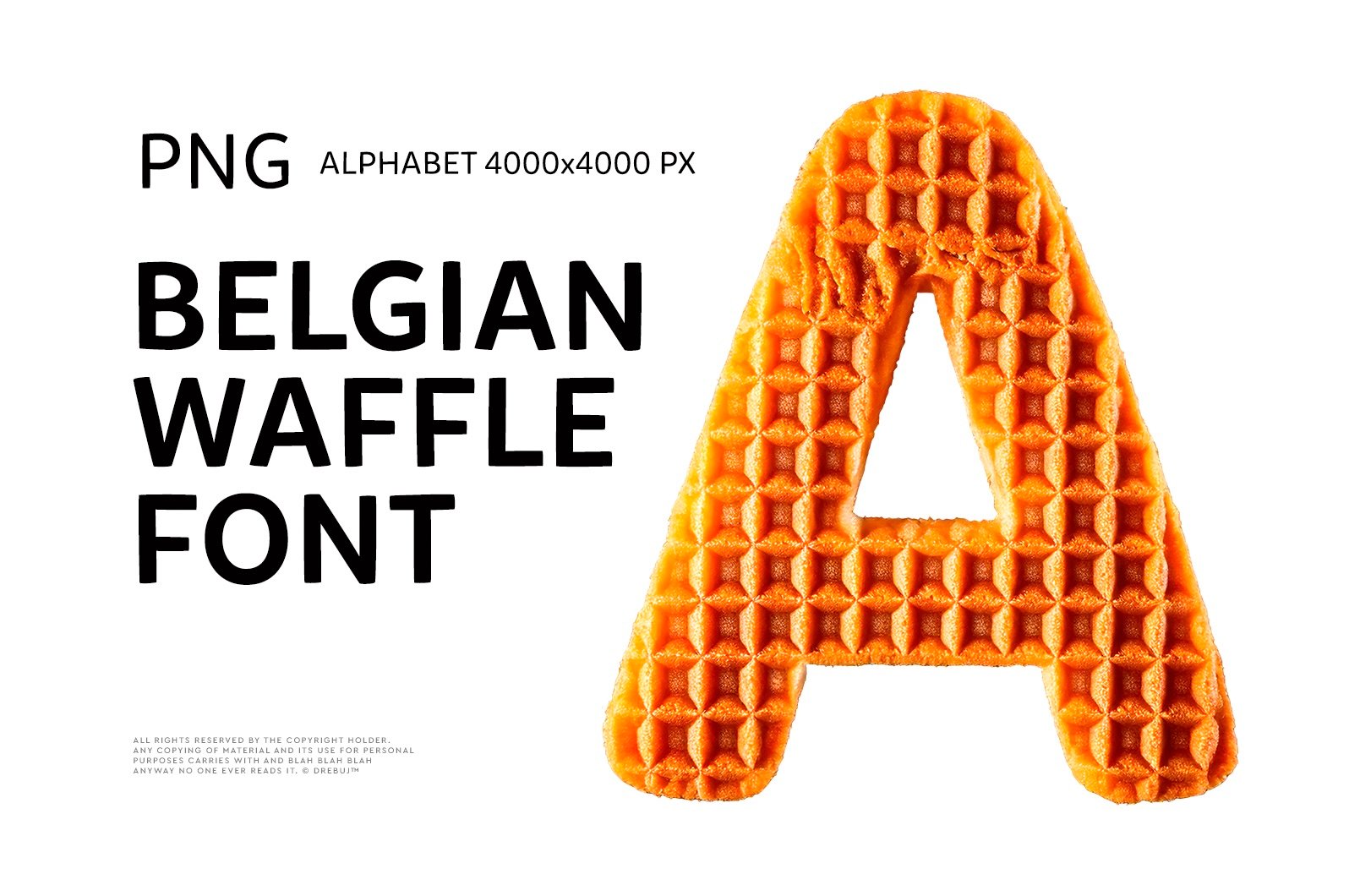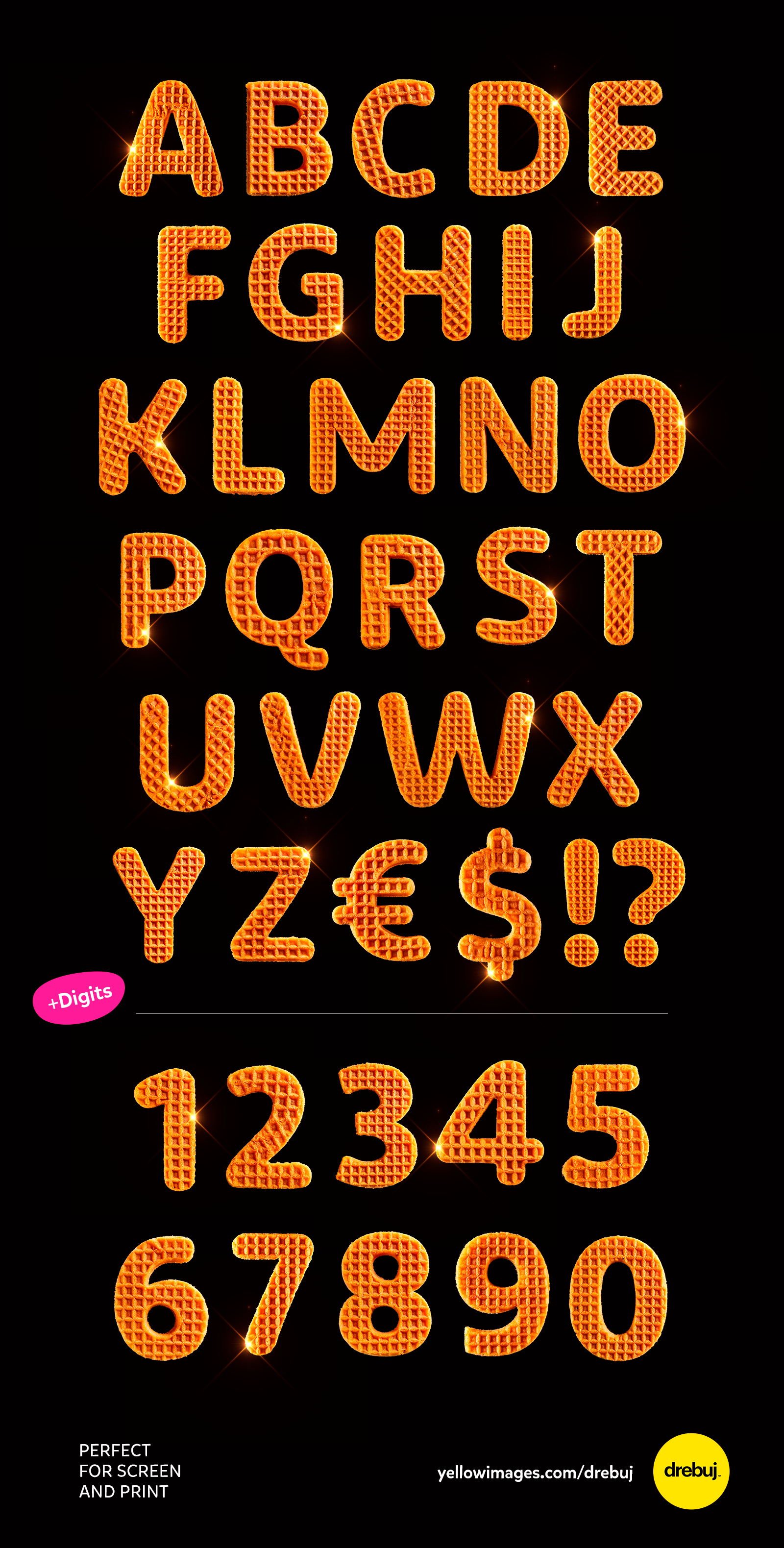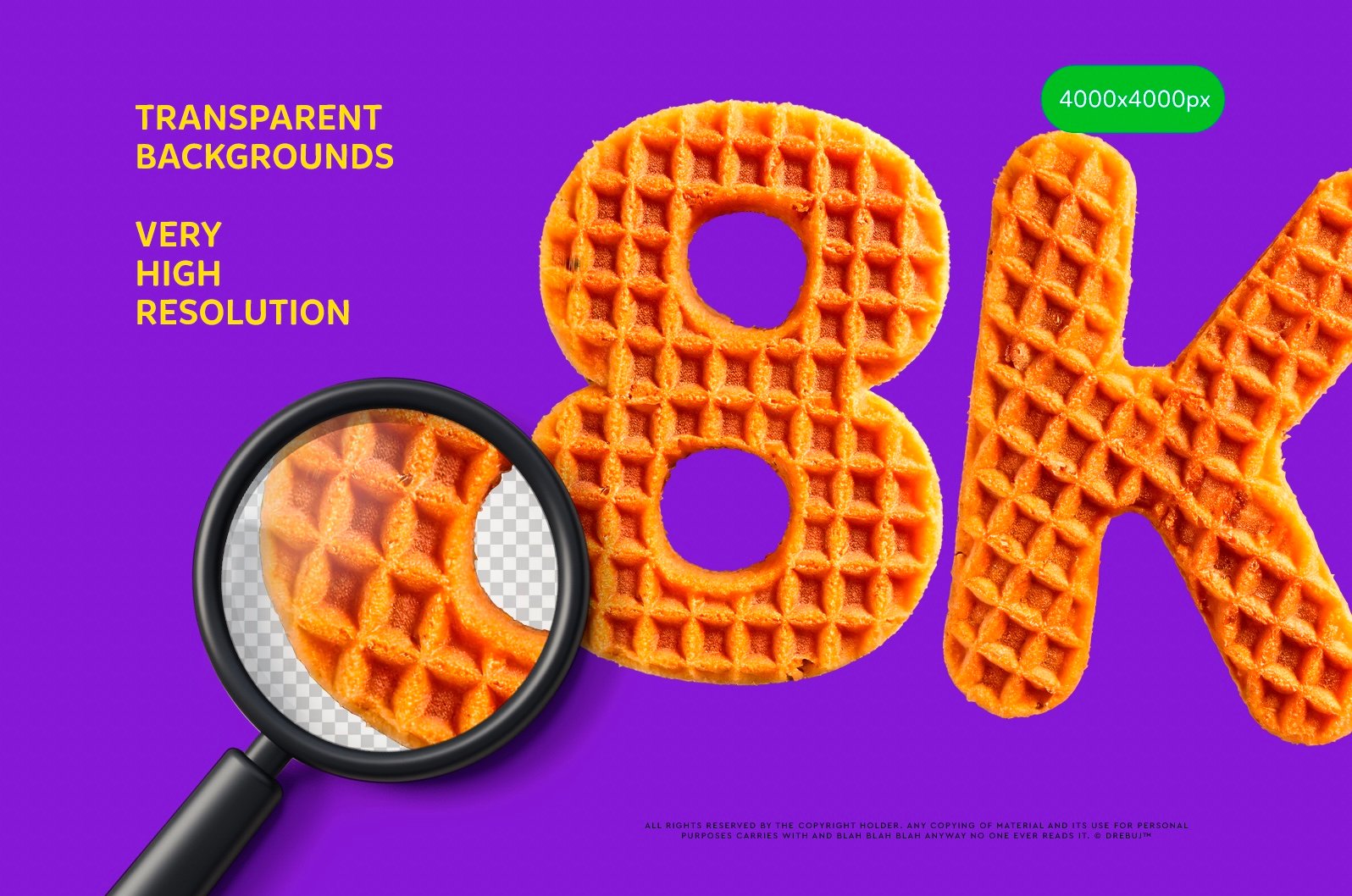
Belgian Waffles Font: Geometric 3D Alphabet PNG
An entire alphabet of Fried Waffles Cookies letters with transparent background.
THIS IS NOT A FONT. This is a very high-quality 3d PNG font of Belgian Fried Waffles texture letters.